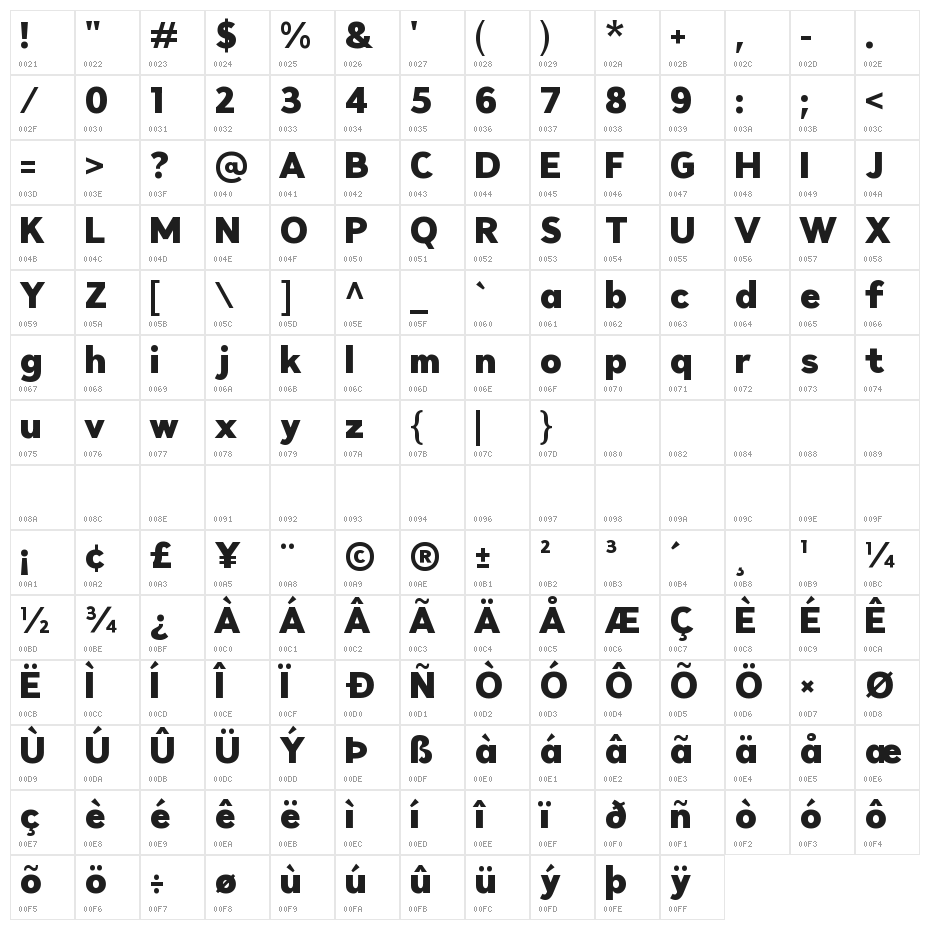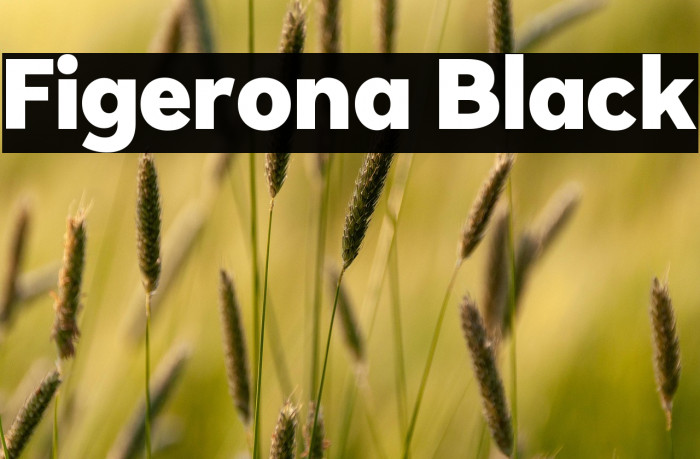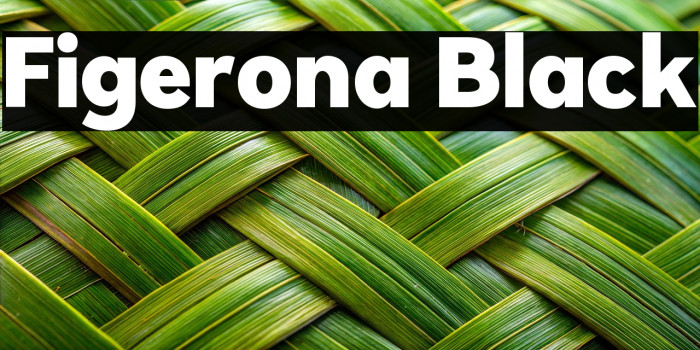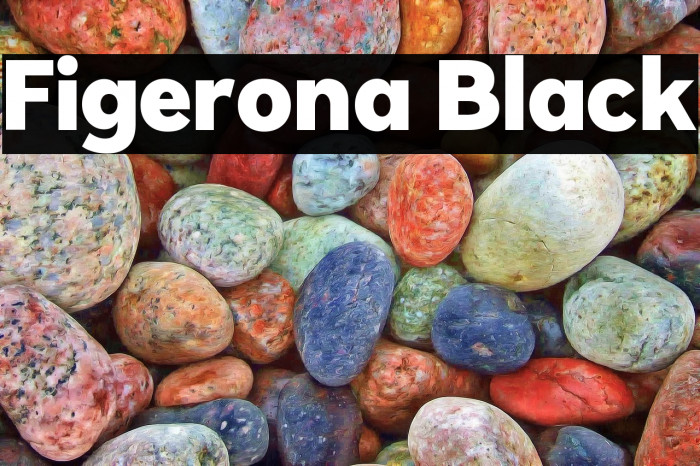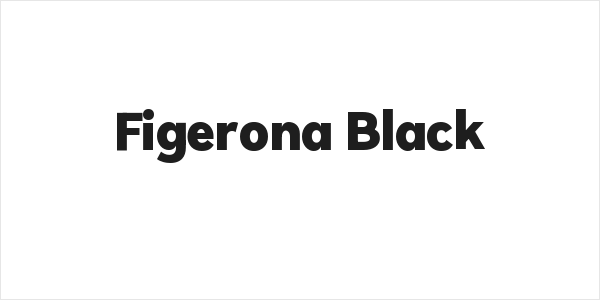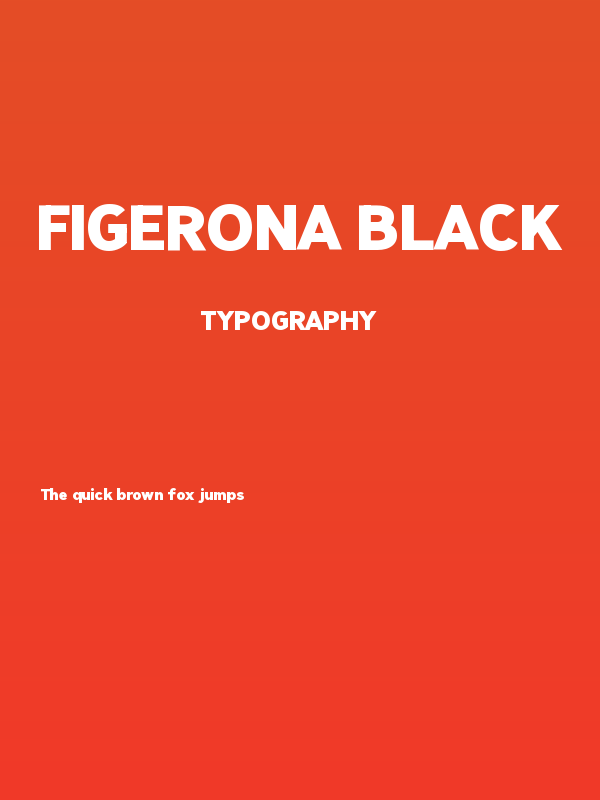
Figerona Black Font
Figerona Black Description
This font is characterized by its bold, strong presence, making it ideal for impactful headlines and attention-grabbing designs. The uppercase and lowercase letters are well-proportioned, with a consistent stroke width that conveys a sense of stability and confidence. The numerals are clear and legible, ensuring readability in various contexts. Special characters are included, maintaining the font's cohesive style. Its geometric shapes and clean lines give it a modern and professional appearance, suitable for a wide range of applications.
| Proposed Projects | Ideal for branding, advertising, posters, and any project requiring a strong visual impact. |